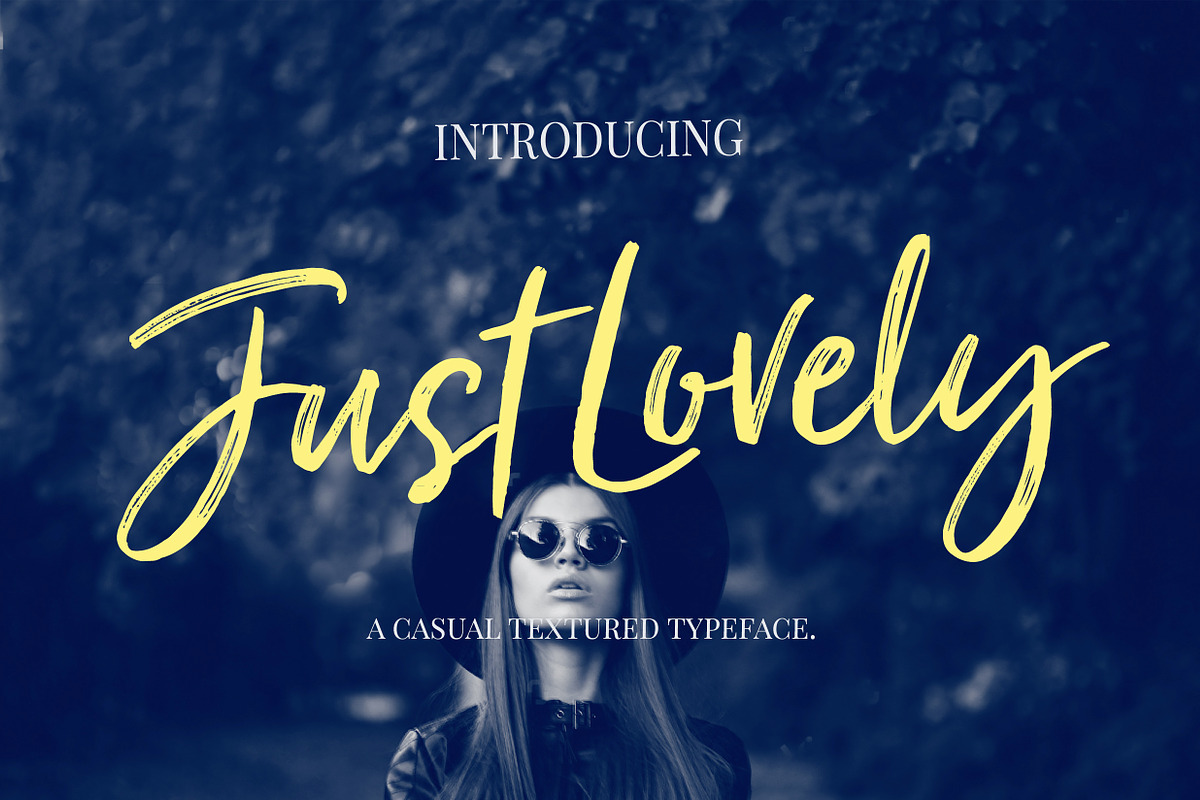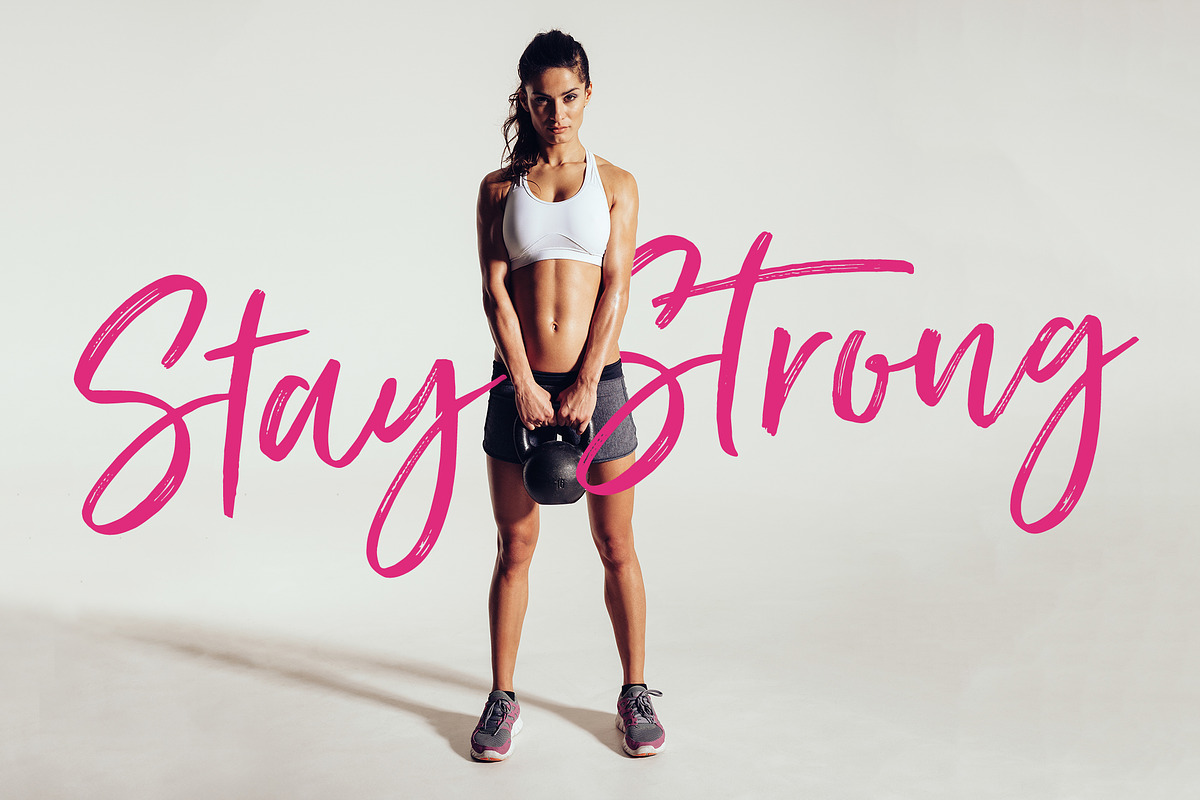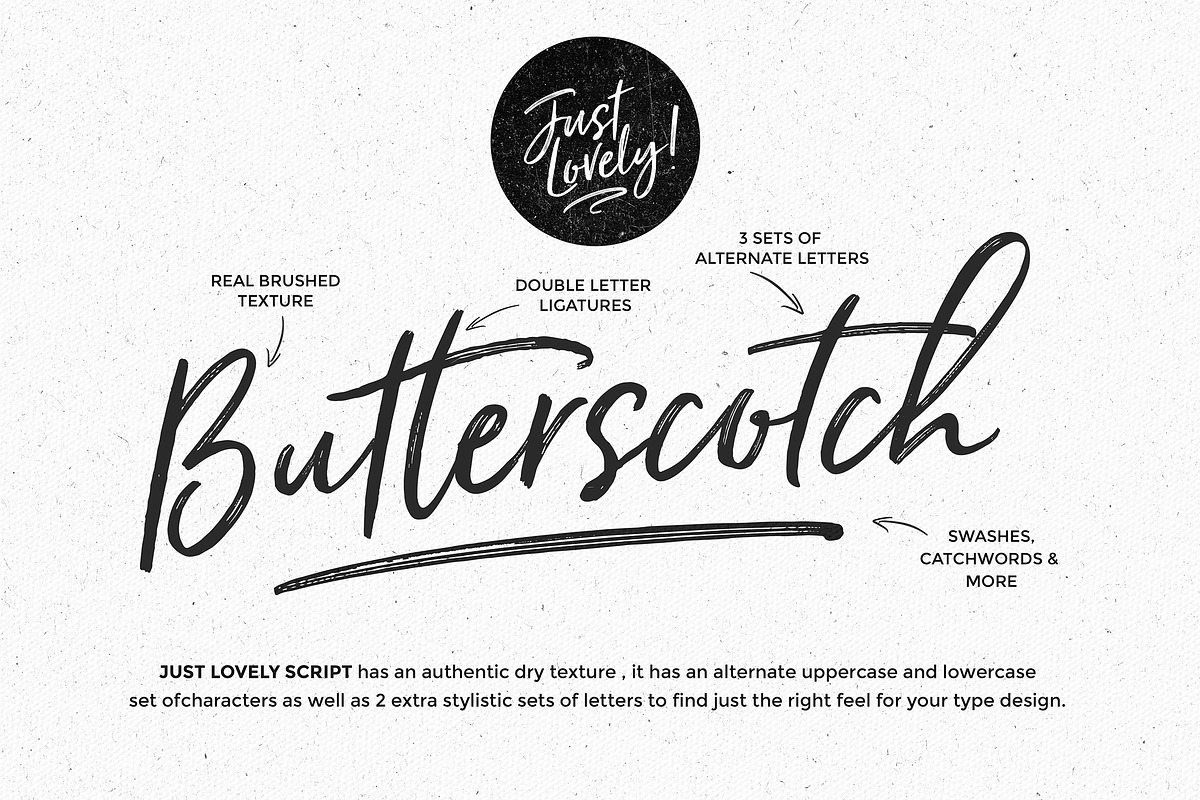
Just Lovely Font & Extras
Just Lovely Font & Extras by Nicky Laatz is a font selected for branding, posters, packaging, typography.
- Just Lovely comes with an alternate set of uppercase letters, and 3 sets of lowercase letter alternates to ensure you get the look you are a
- To top it all off, Just Lovely comes with a complimentary dingbat font with a set of 62 swashes, catchwords, and doodles to bring your type
- Just Lovely comes with an alternate set of uppercase letters, and 3 sets of lowercase letter alternates to ensure you get the look you are a
- To top it all off, Just Lovely comes with a complimentary dingbat font with a set of 62 swashes, catchwords, and doodles to bring your type
- Just Lovely comes with an alternate set of uppercase letters, and 3 sets of lowercase letter alternates to ensure you get the look you are a
Why Just Lovely Font & Extras is worth a look
Just Lovely Font & Extras by Nicky Laatz fits naturally into Branding, posters, packaging, typography.